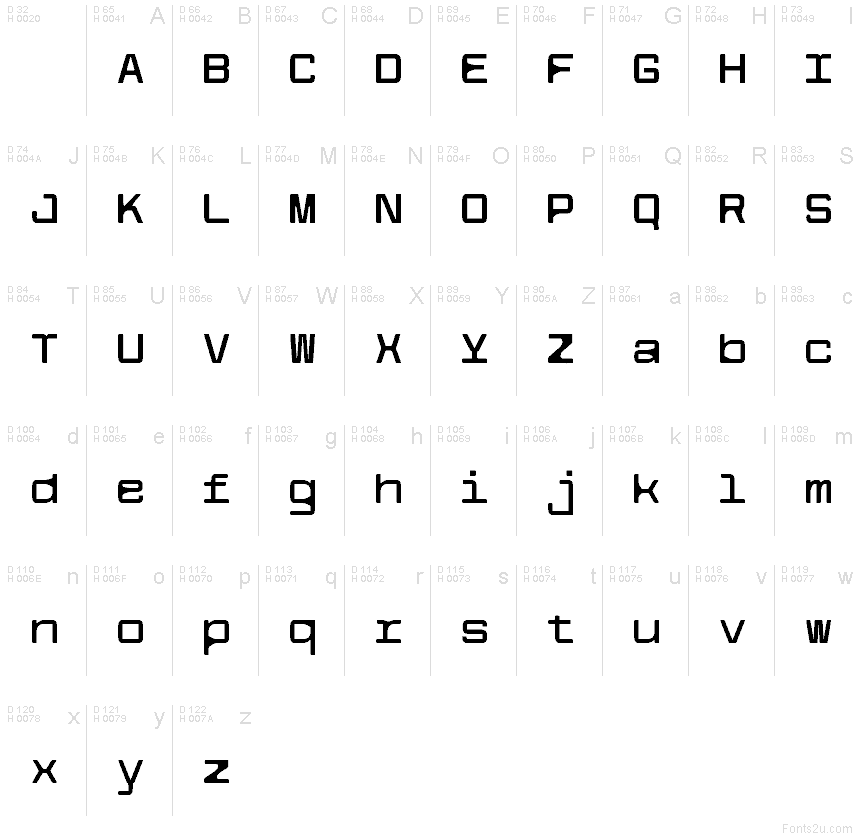
CS Gilbert Mono Drawn font by Craft Supply Co. is a free expanded techno display font, a standout style from the CS Gilbert family. It stands out with a monospaced rhythm and wide, squared curves—those soft, rounded rectangles make each letter feel engineered yet approachable. Consistent strokes and open forms give it a crisp, modular texture that reads boldly at a glance without feeling cold.
Using CS Gilbert Mono Drawn, headlines lock into clean grids for sci‑fi titles, esports branding, app splash screens, tech posters, packaging, and event signage. The expanded width adds presence while the gentle corners keep the tone human. This free font shines on large scales; pair it with a neutral grotesk for body copy and let the display carry the headline weight.